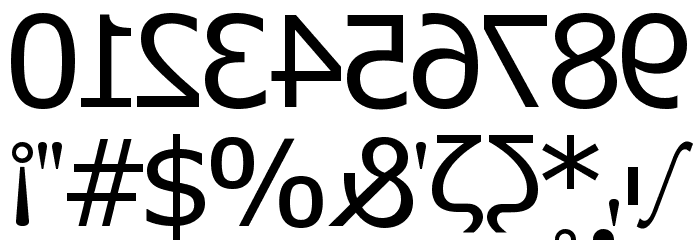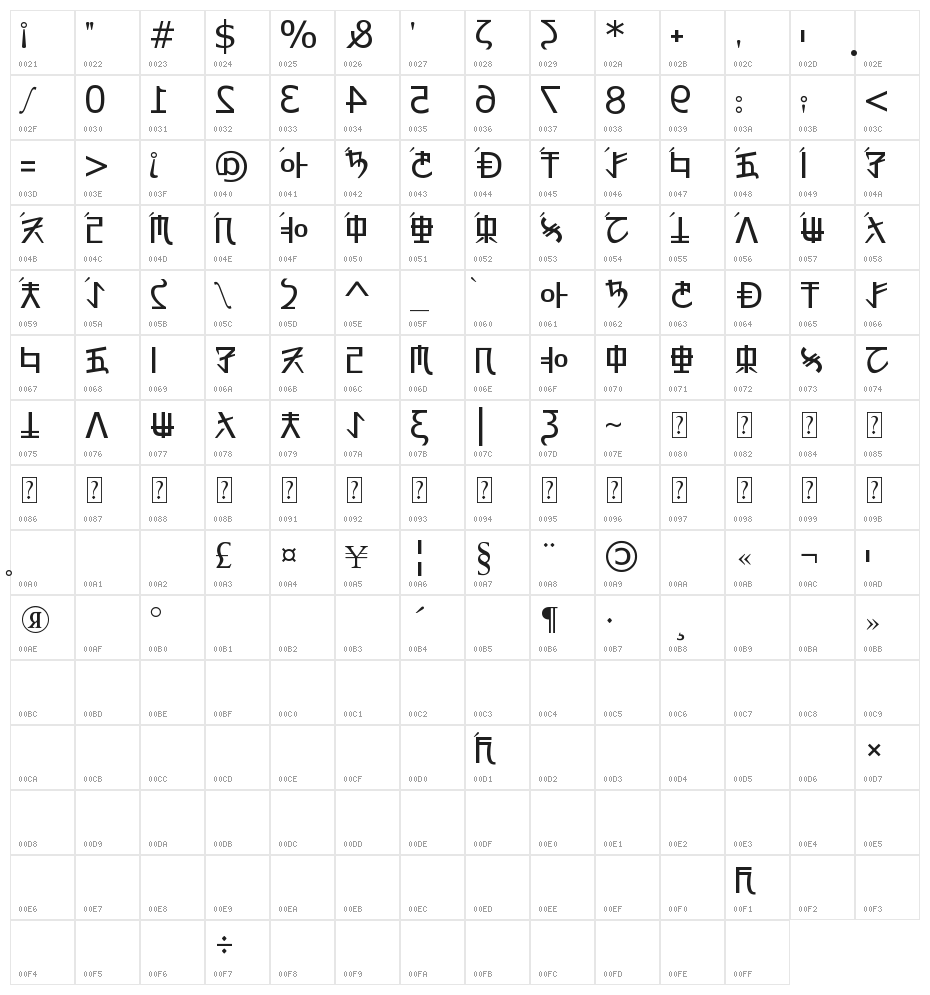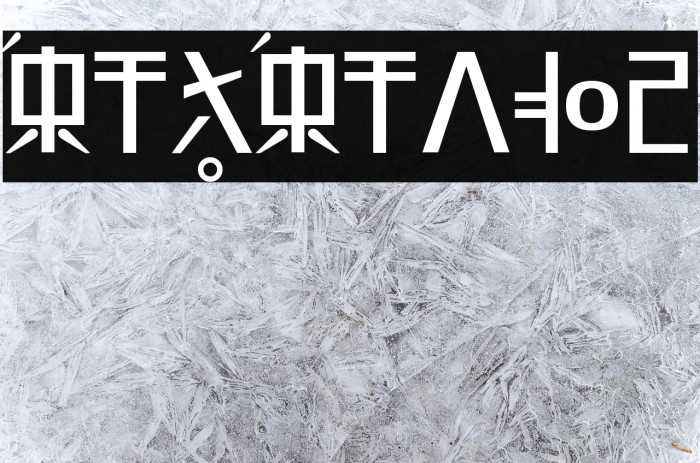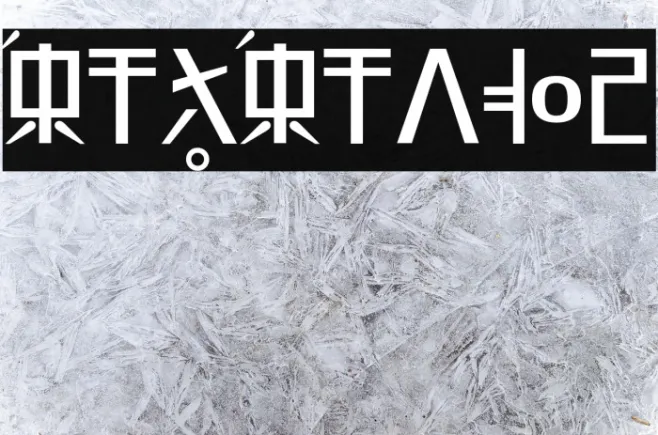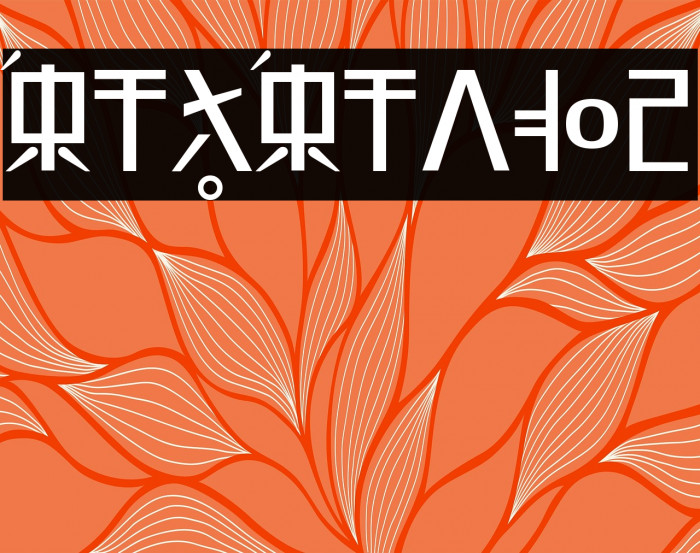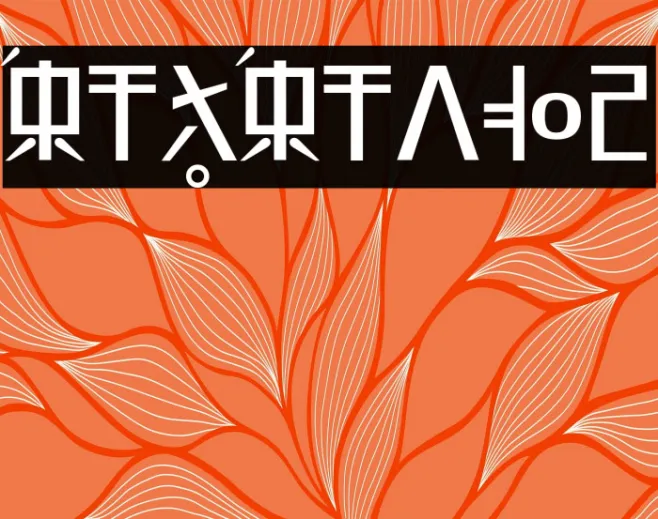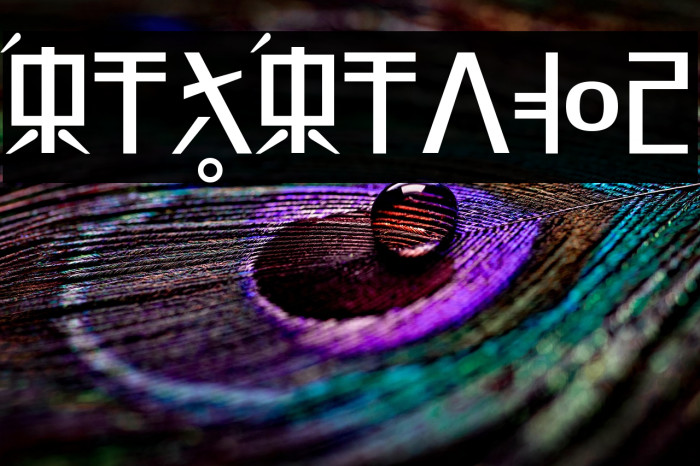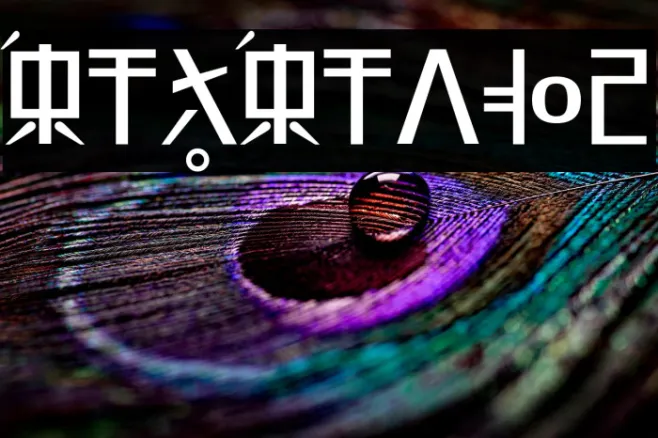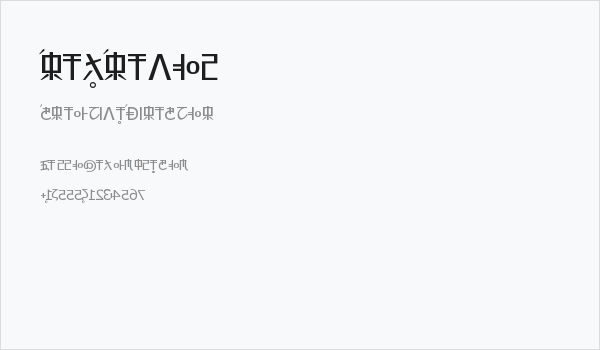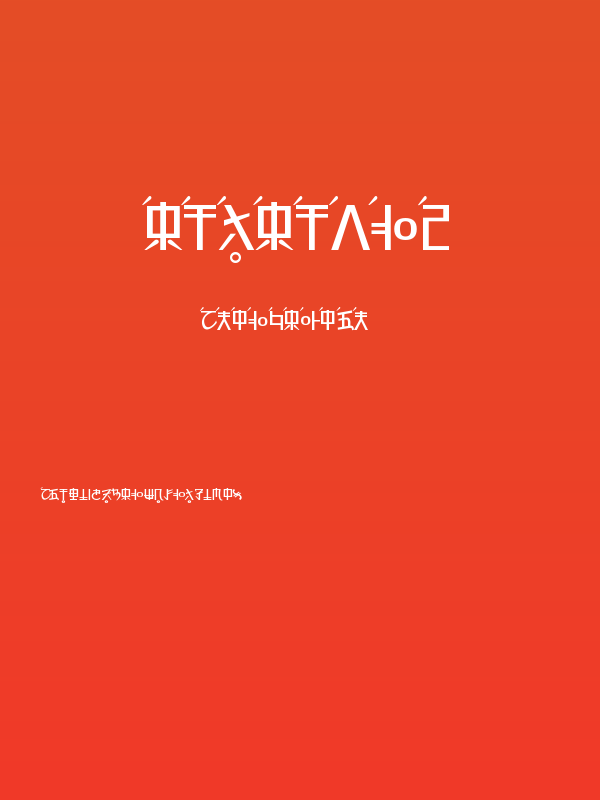
Rex Revol Font
Rex Revol Description
This font features a unique and futuristic design with angular and geometric shapes. The characters are bold and have a distinct, sharp appearance, making them stand out. The uppercase letters exhibit a strong presence with their solid structure, while the lowercase letters maintain a consistent style, offering a cohesive look. The numbers and special characters are designed to match the overall aesthetic, providing a uniform and modern feel. This font is suitable for projects that require a contemporary and edgy look.
| Proposed Projects | Ideal for sci-fi themed posters, modern branding, tech-related designs, and digital artwork. |